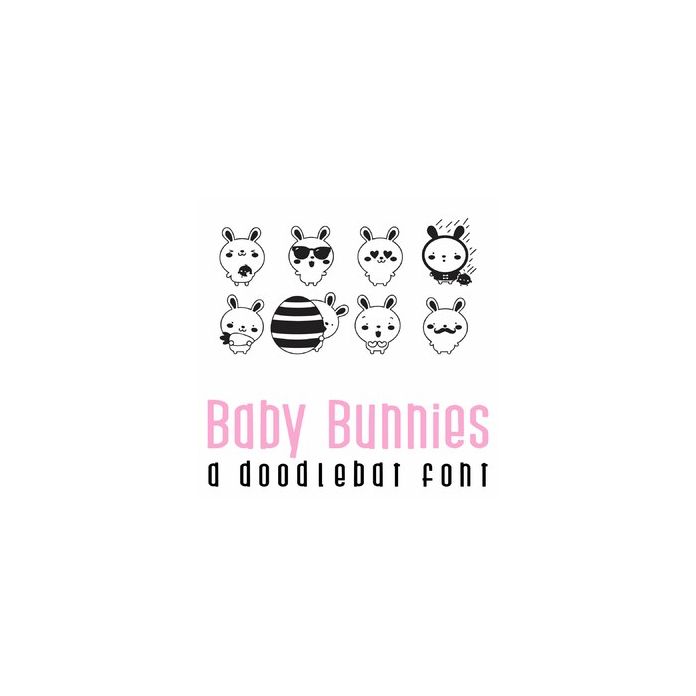
This fun doodlebat font features 26 adorable emoji style bunnies. Perfect for Easter, cards, gifts, decor, crafts, scrap book pages, planner stickers and more!